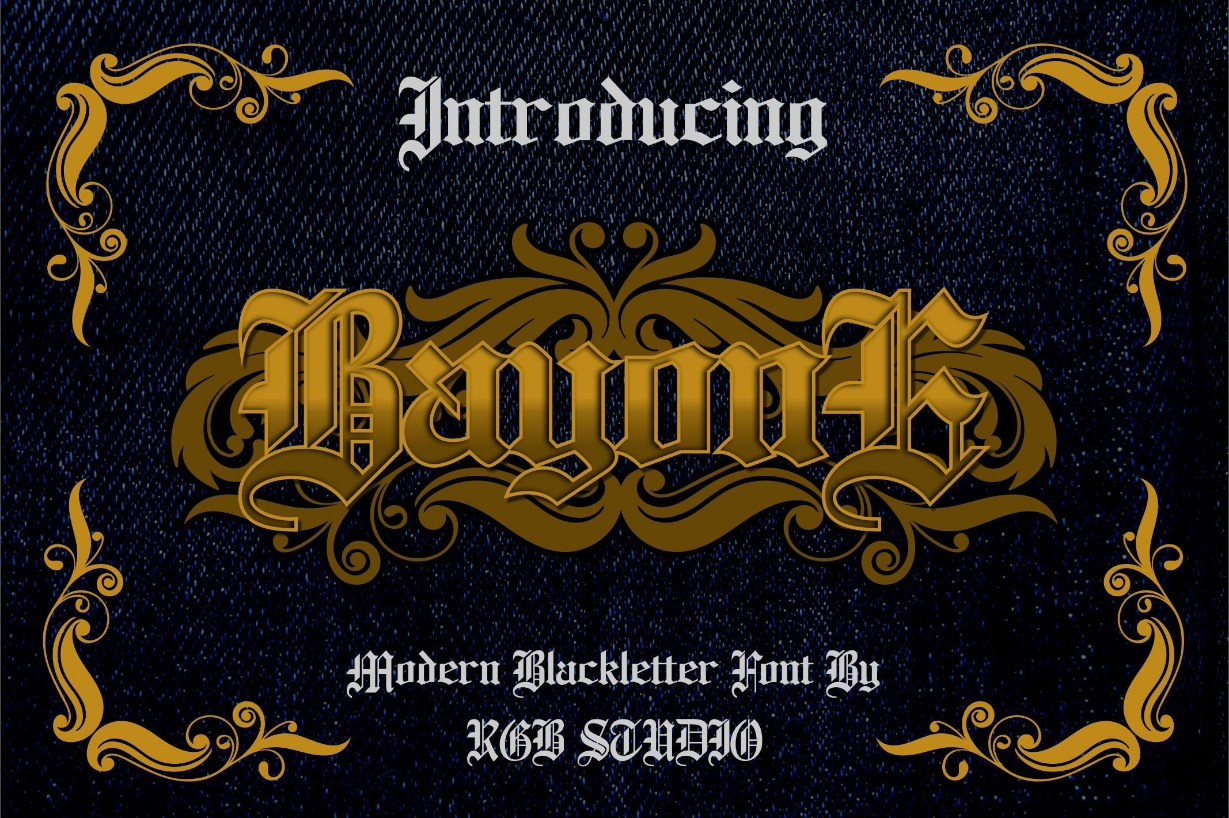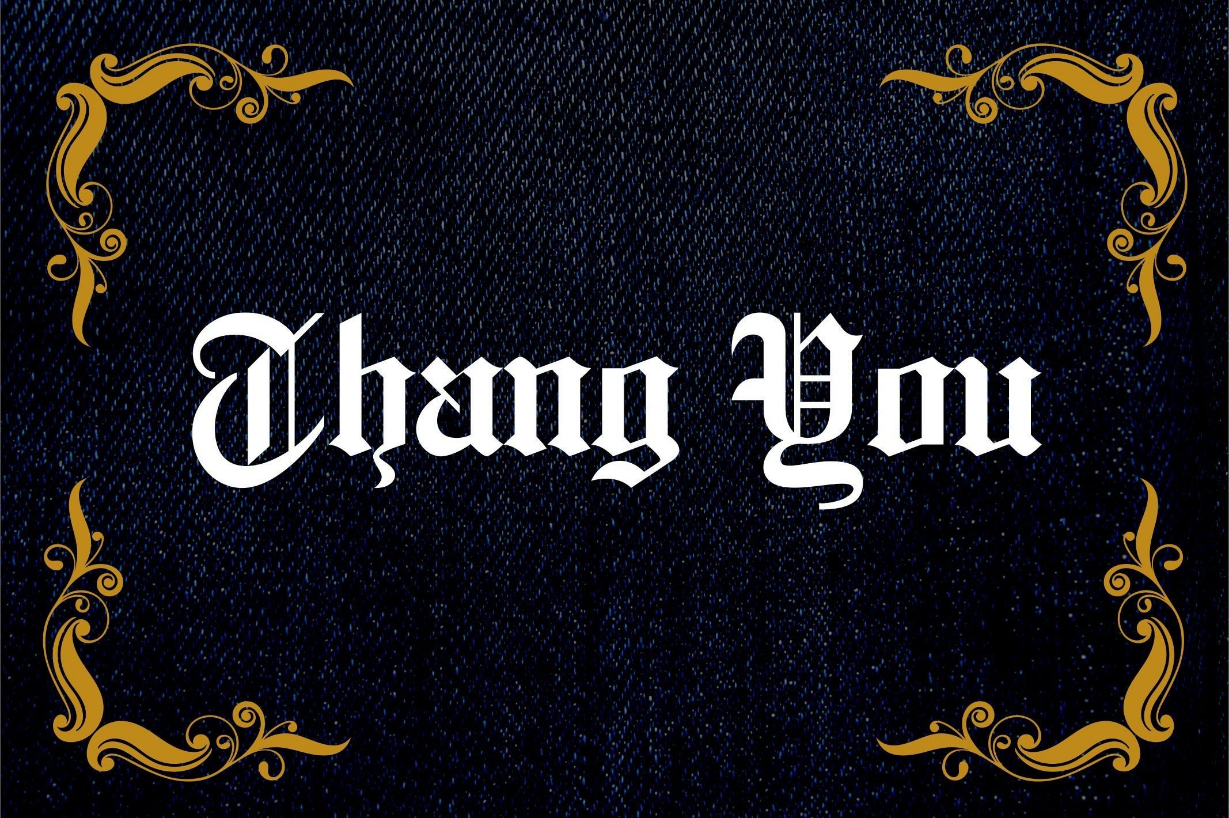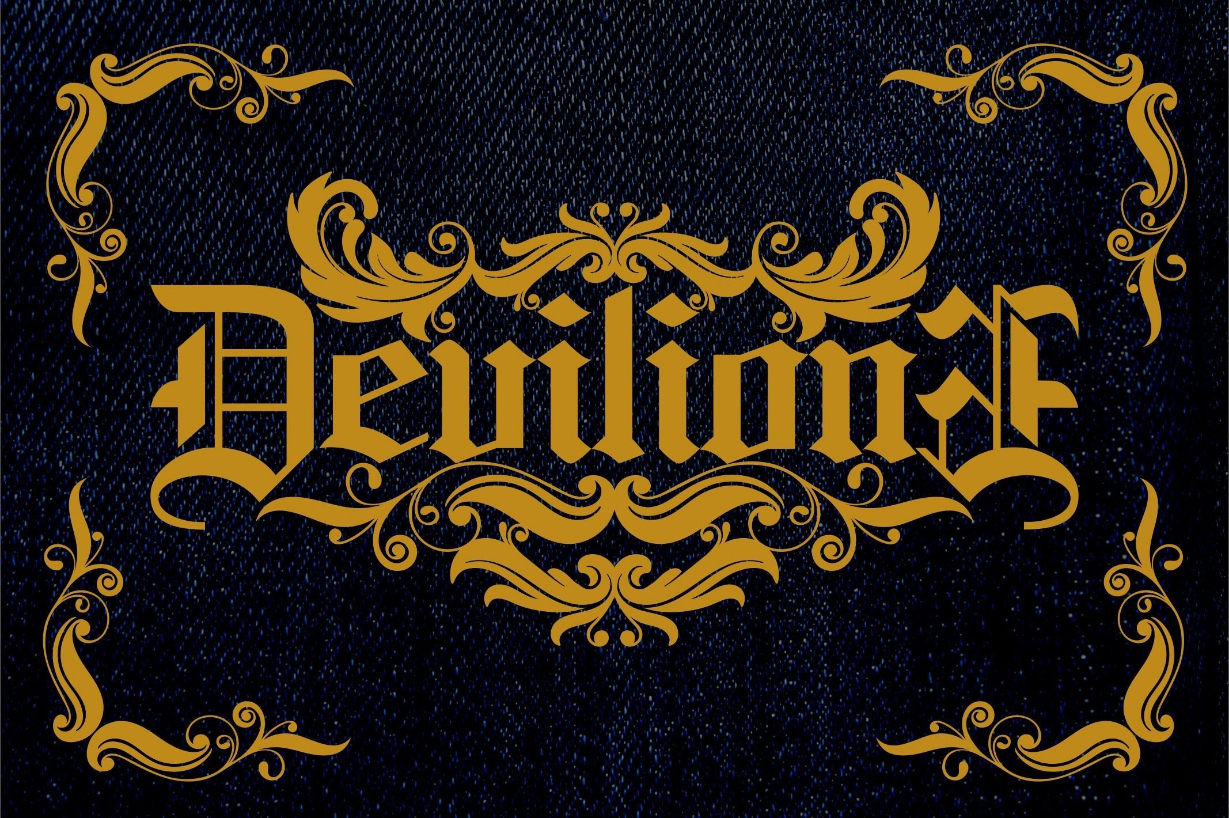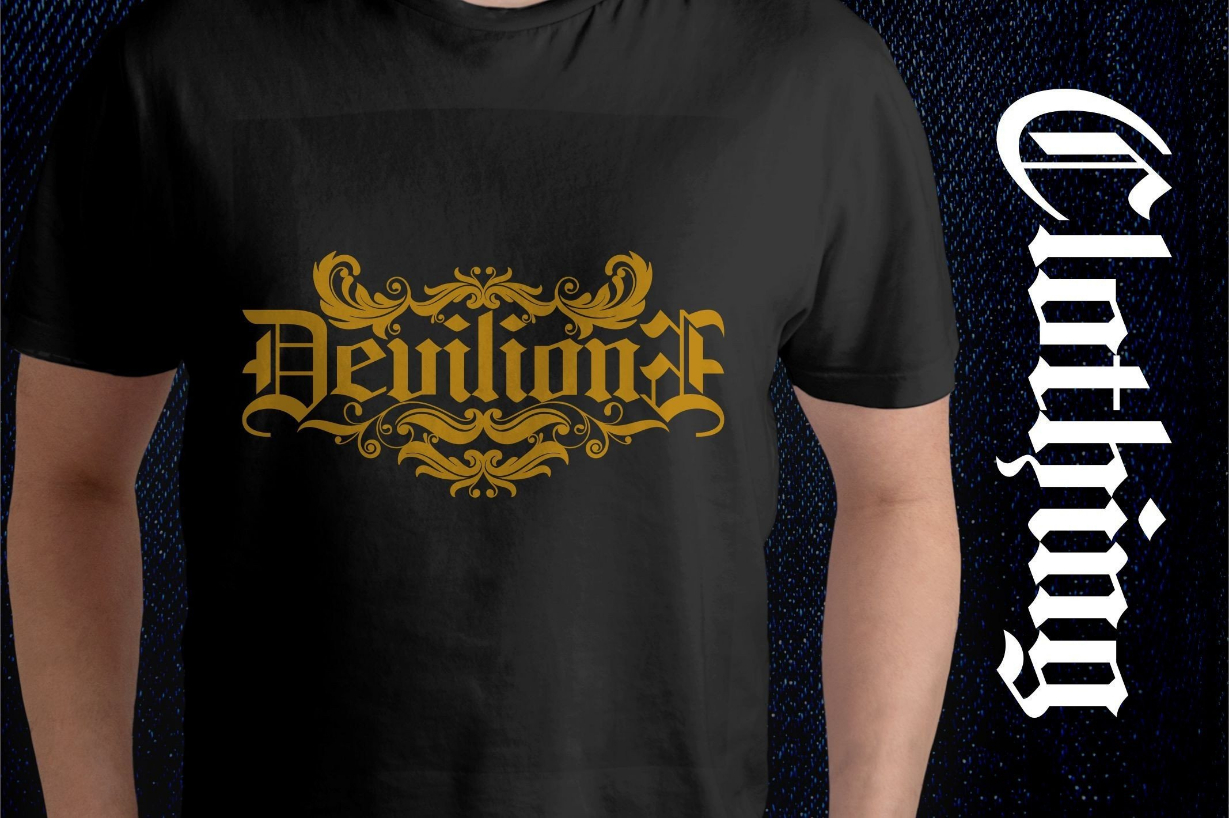
About Bayone Font
Bayone is a bold, distinct and elegant blackletter font. Add it confidently to your projects, and you will love the results. It is suitable for any creation that needs a bold accent, and it can transform any idea into a true piece of art!